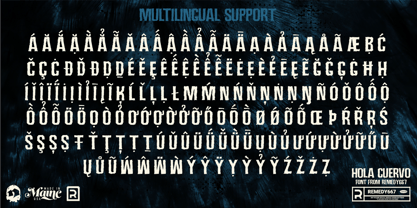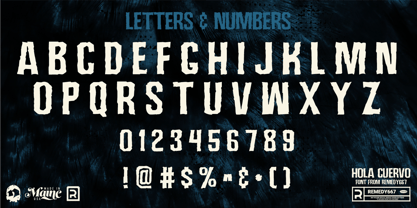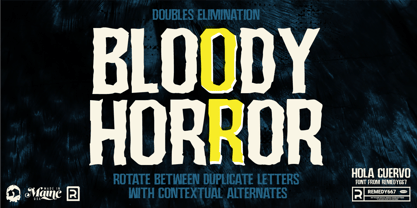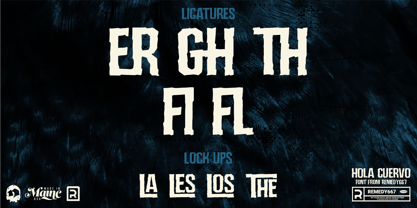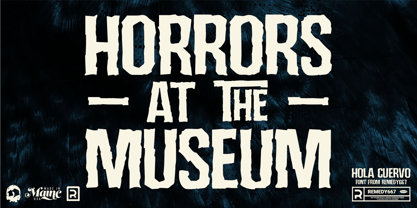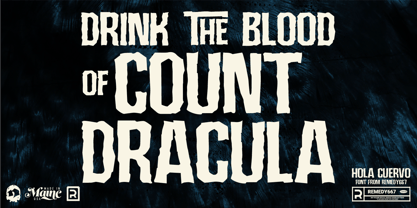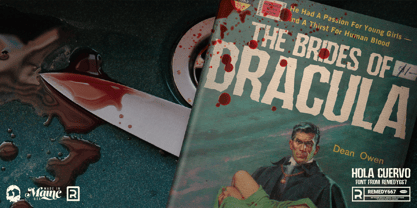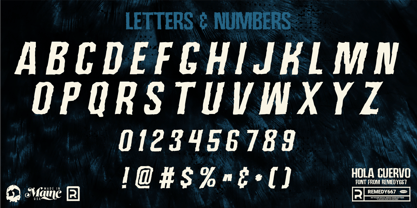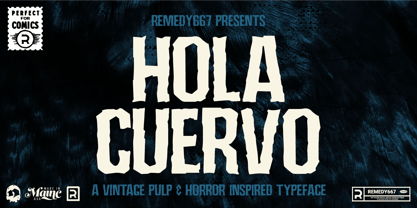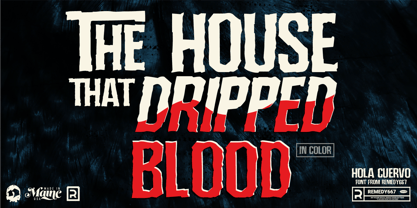
Hola Cuervo
by Remedy667
The Hola Cuervo Font Family was designed by Nick Polifroni and published by Remedy667. Hola Cuervo contains 2 styles and family package options. More about this family
Hola Cuervo is a horror display font inspired by classic horror movie posters, designed to capture that vintage chill with a cleaner, more refined edge. Originally imagined as a sleeker counterpart to the font Screature from Remedy667. Hola Cuervo delivers bold, sharp forms with a consistent line weight that keeps everything crisp and highly readable.
Built for the next generation of horror design, Hola Cuervo brings heavy, striking letterforms that command attention without overpowering your layout. Whether you're crafting posters, logos, or title treatments, this typeface delivers just the right amount of menace while staying polished and versatile.
Now fully expanded and refined, Hola Cuervo has evolved into a complete, production-ready typeface, blending retro horror charm with modern usability.
Features
• Full character set with expanded glyph coverage
• Rotating doubles to eliminate repetition and improve natural flow
• Updated kerning for smoother, more consistent spacing
• Oblique version for added flexibility and dynamic layouts
• Clean, consistent line weight for strong readability at display sizes
• Inspired by vintage horror movie posters with a refined, modern finish
• Ideal for posters, logos, branding, and title design
Designers: Nick Polifroni
Foundry: Remedy667